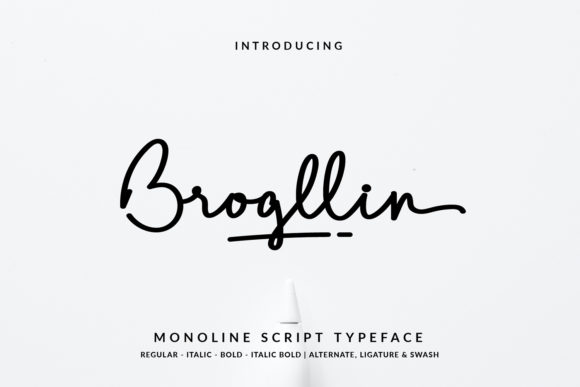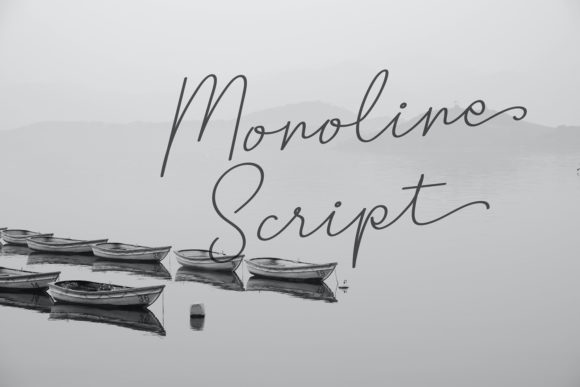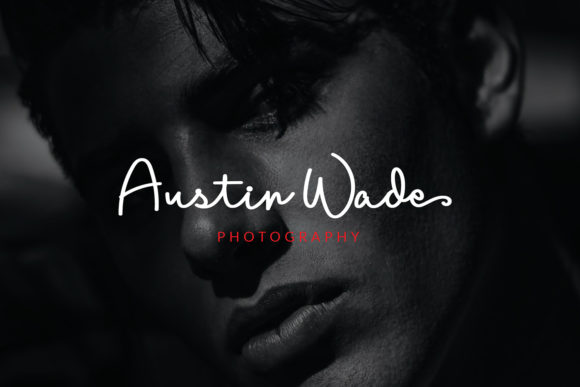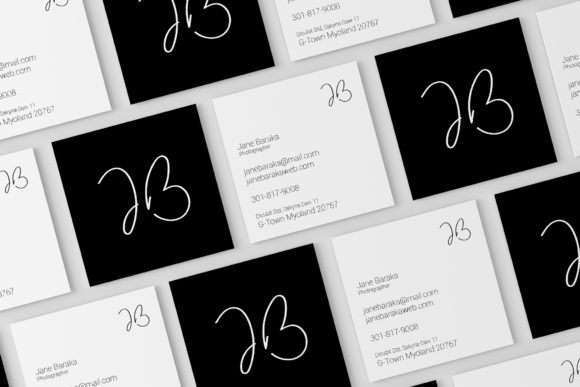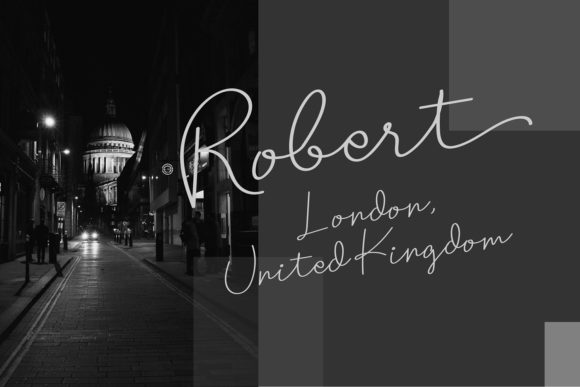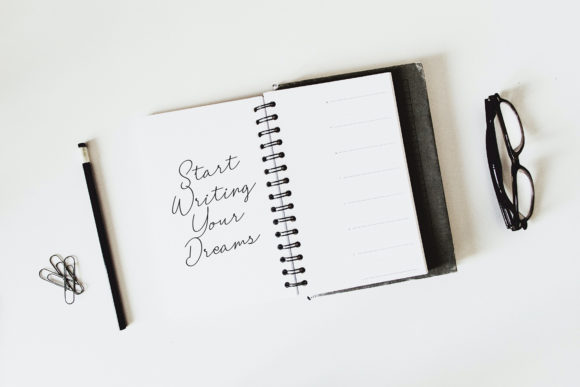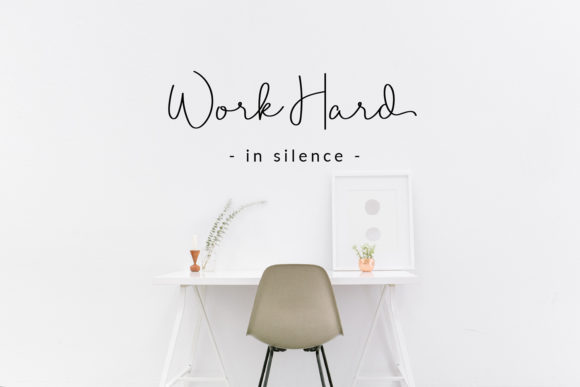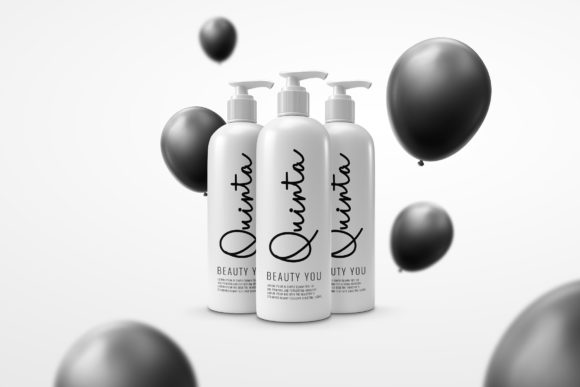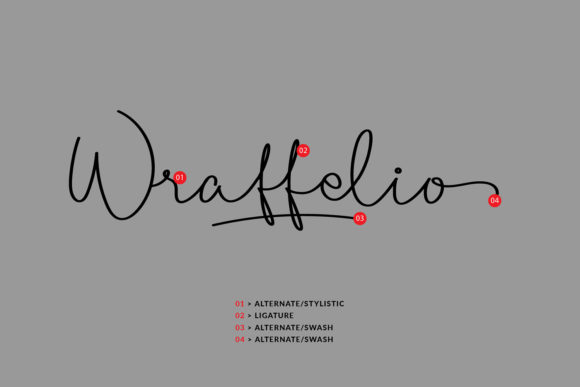
Brogllin Font
Brogllin is a delicate and elegant handwritten font. Its distinct and well rounded letters make this font a masterpiece. Fall in love with its incredibly versatile style and use it to create spectacular designs!